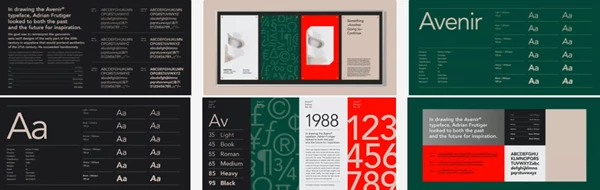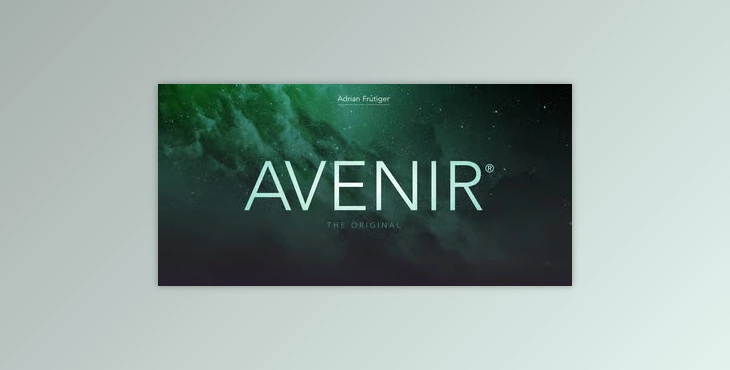
The Avenir Font Family is a geometric sans serif remaster by Adrian Frutiger of the early twentieth-century geometric sans serifs. This Frutiger impulse was to create a family that would suggest success and visual attraction of old types while blending a contemporary feel for the twenty-first century. He accomplished this through a geometric typeface with a slight intervention in a rounded, humanistic presence that rounded harsh edges often present in geometric designs. Thus, this family was polished and rounded slightly, but also crisp and clean where needed. The effectiveness of this elegant, functional family is demonstrated by titles at the Dallas Fort Worth International Airport and signage at Hong Kong International Airport. In addition, in 2003, the city of Amsterdam selected the Avenir type family as its corporate typeface.
The Avenir Type Family does not have a design family apart from the above-mentioned slight weight changes, except for what's noted above, which speaks volumes to the non-distracting versatility and timeless nature. For example, book and light are similar strokes but have slight variances in weight for body copy and captions/subtitles. Book is suggested for body copy, while light assists where smaller point sizes should be used.